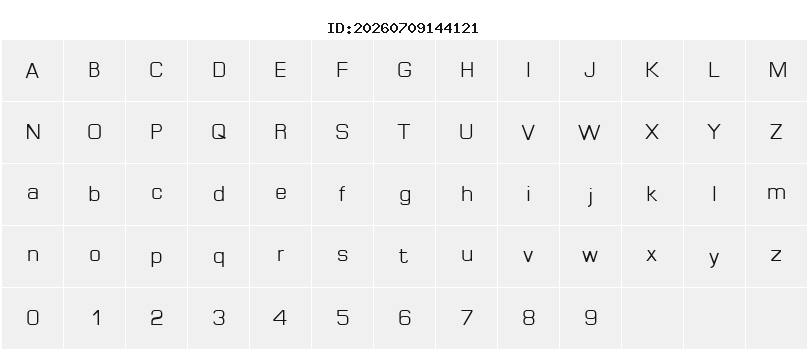
• Font Name: DSN ArKorn
About DSN ArKorn.ttf
DSN ArKorn.ttf is a modern, elegant sans-serif font designed for ultimate readability and visual harmony. Perfect for branding, headlines, web design, and print materials.